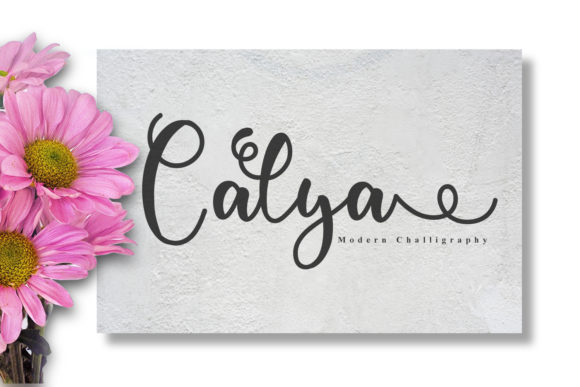
The Elegant Calya Font: A Designer’s New Best Friend
I’ll never forget the moment I stumbled upon the Calya font while working on a project for a client who wanted an elegant and sophisticated look. I had been searching for hours, trying out font after font, but nothing seemed quite right. That was until I saw Calya – its delicate, flowing lines and beautiful glyphs immediately caught my eye. I knew right then and there that I had found the perfect fit.
An Honest Review of Calya Font
What I Love About Calya ✨
- ✅ Delicate and elegant design that’s perfect for a wide range of projects
- ✅ Well-balanced characters that make it easy to read and visually appealing
- ✅ Features a varying baseline, smooth lines, and stunning alternates
While Calya is an amazing font, there are a few things to keep in mind. For example, it’s not suitable for body text due to its elegant and cursive nature. It’s best used for headings, titles, or quotes. Additionally, some users might find the font a bit sensitive to font size – it looks best when used at larger sizes.
Another thing to consider is that not all platforms support OpenType features, which means you might not be able to access all the glyphs and swashes on every device or software. But overall, these are minor limitations compared to the font’s many benefits.
The Story Behind Calya Font
Calya was designed by a team of typographers who wanted to create a font that was both elegant and versatile. Inspired by classic calligraphy and modern digital design, Calya is the result of careful craftsmanship and attention to detail. The designers aimed to create a font that would be perfect for creative projects, from wedding invitations to branding and advertising.
Q: What is the best use for Calya font?
A: Calya is best used for headings, titles, or quotes, where its elegant and cursive nature can shine.
Q: Is Calya font suitable for body text?
A: No, Calya is not suitable for body text due to its elegant and cursive nature. It’s best used for display text.
Q: Does Calya font support OpenType features?
A: Yes, Calya font supports OpenType features, including glyphs, swashes, and stylistic alternates.